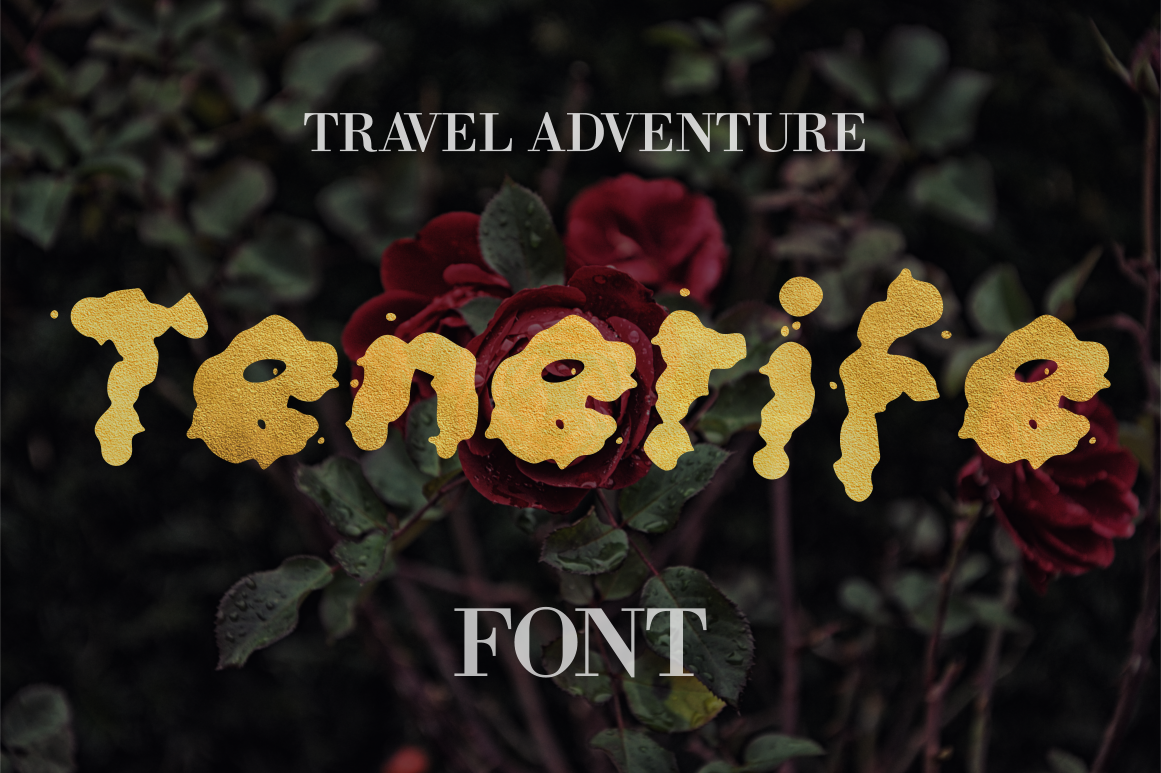
Tenerife Font
Description: Here we are with a fresh new font Tenerife Font. Created with sun, passion, time and creativity. The Tenerife Font is an amazing font for any kind of design work. It can be used for invitations, logos, greeting cards, t-shirts, artist names, business main logo or any suitable design that you want to create.